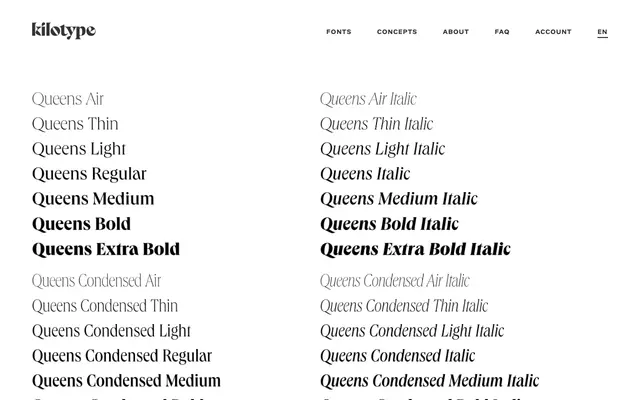
Queens specimen from Kilotype
A versatile grotesque family from Kilotype spanning seven weights across regular, condensed and compressed widths, each with matching italics.
Forty-two styles in total, running from Air to Extra Bold across three widths and complete italic counterparts. The range makes it well suited to publication and identity work where consistent type across tight columns and open display settings is required. No designer or release year is listed on the page.
Queens presents as a contemporary grotesque sans-serif with a broad weight range and multiple width variants, consistent with the grotesque tradition of workhorse text and display families.